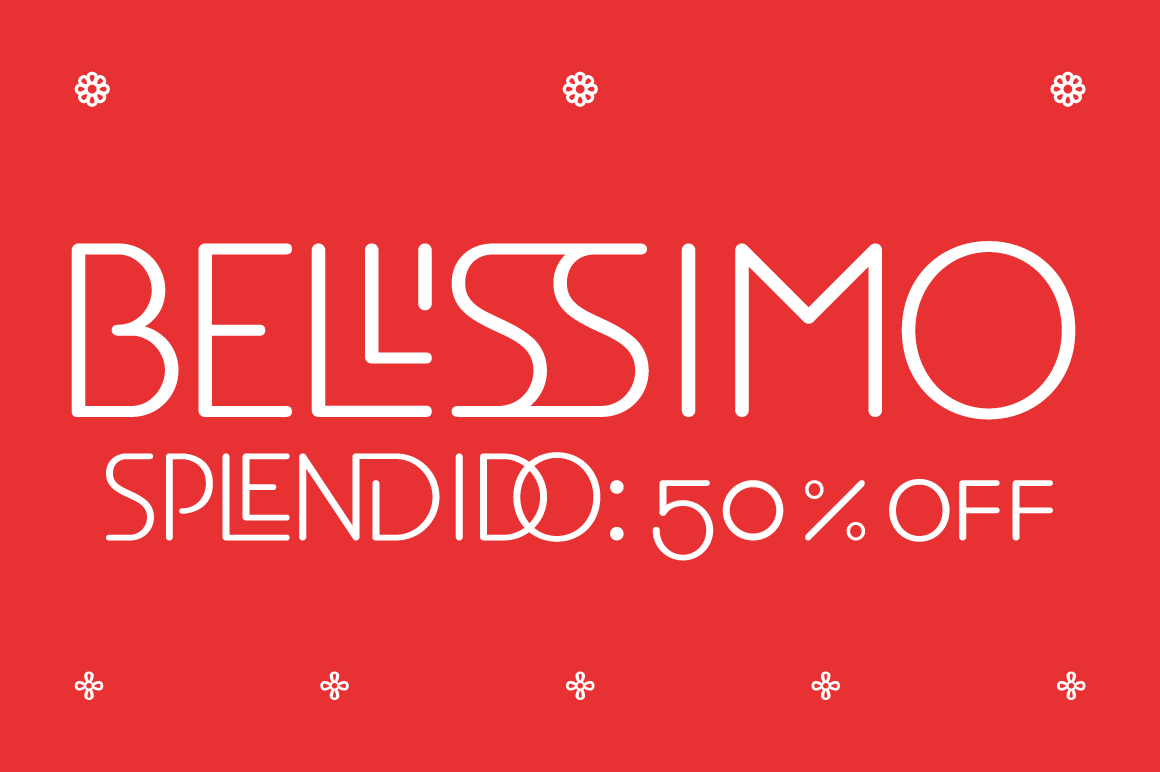
Bellissimo works surprisingly well as a text face as well. Small capitals, alternate glyphs and both lower and upper case figures are intrinsic in the design.